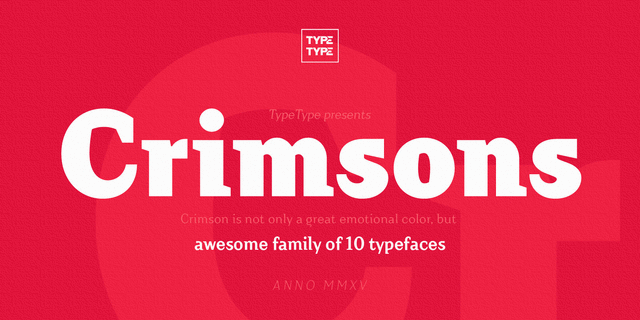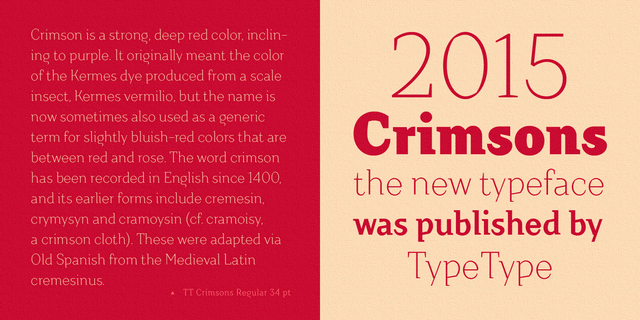
TT Crimsons (10 fonts)
About TT CrimsonsFontfamily Crimsons unique and very unusual. It combines modern grotesque, medieval motifs and serif proportions. These fonts will be a useful part of a collection designers. Crimsons is ideal for short and emotional inscriptions. Titles, names, logotypes — this is his element. Crimsons designed in TypeType studio in 2015.
Associations for font family TT CrimsonsTypeface personality and character:
solid, original, distinctive, sharp, broken, cutting, crisp, serious, urban, unusual, strange, proud, modern, dynamic, artistic, expensive, technically, hammered, fragile, transparent, flat, experimental, glass, wire, thin, iron, steel, rigid, severe, stable, self-assured, reliable, urbanistic, authoritative, convincing, important, monumental, architectural, extravagant, ambitious, heavy, strong, splashy, notable, bright, active, stone